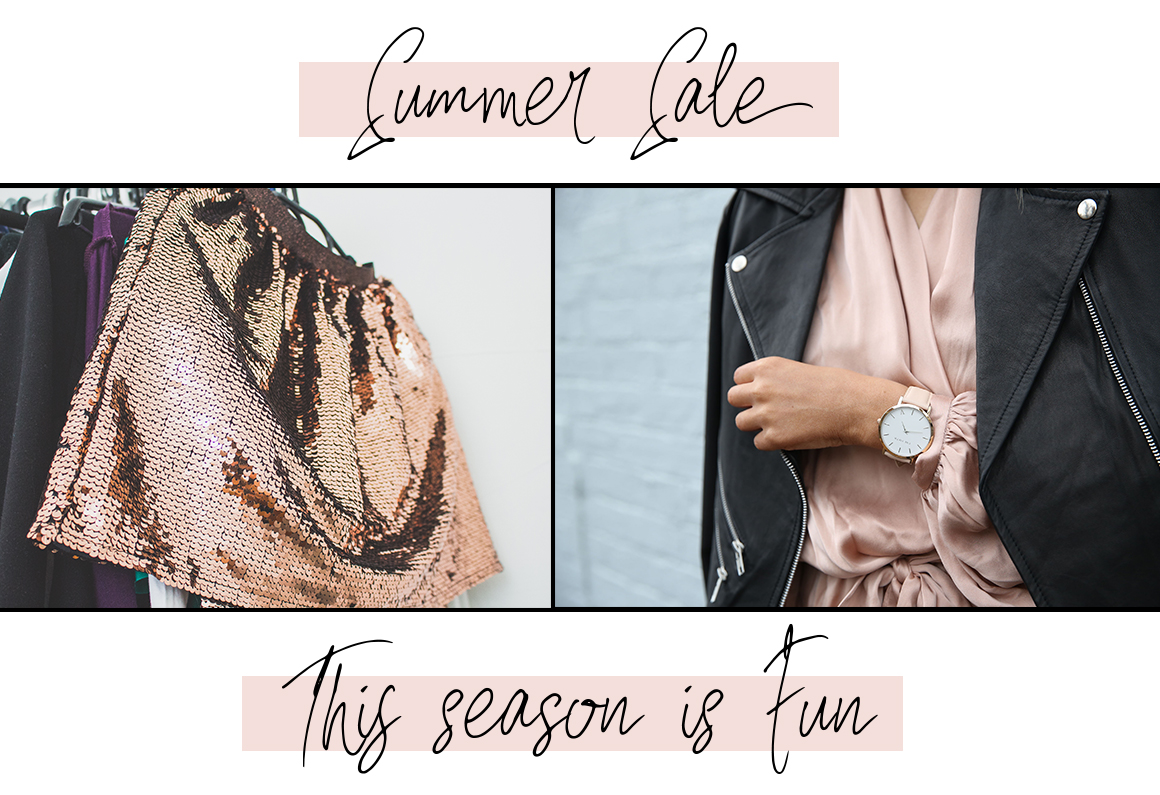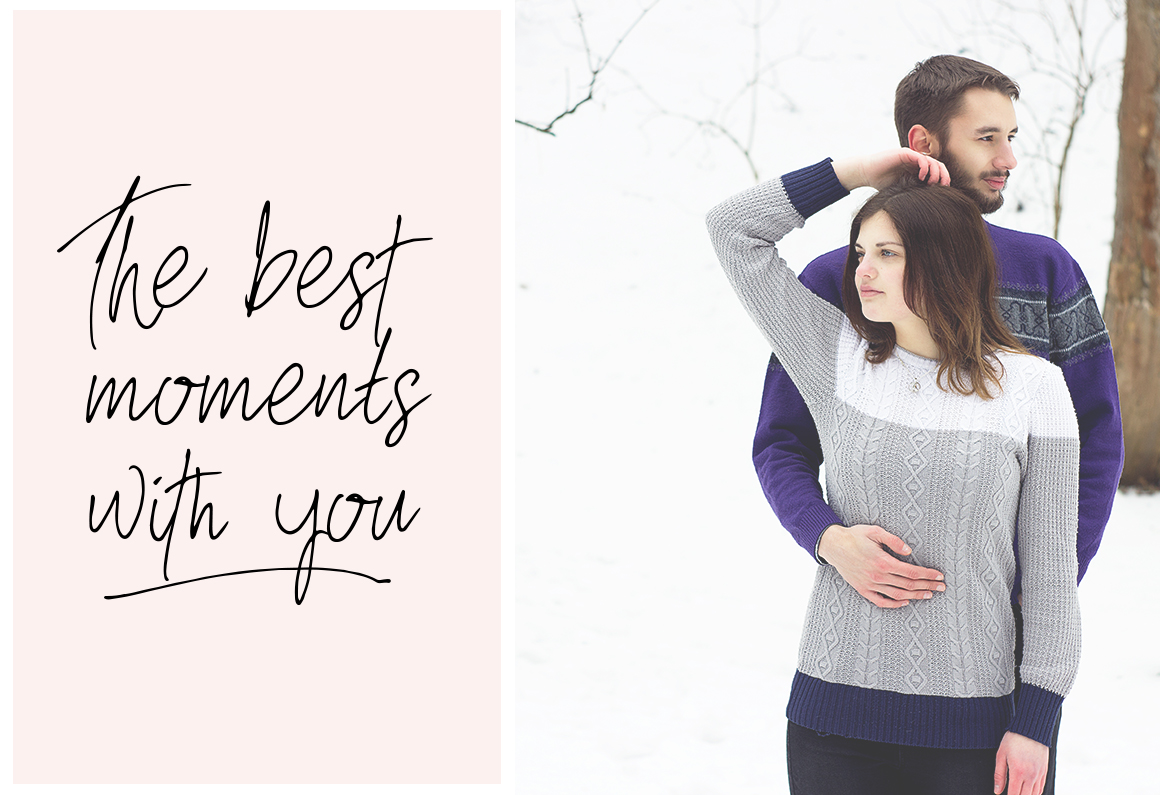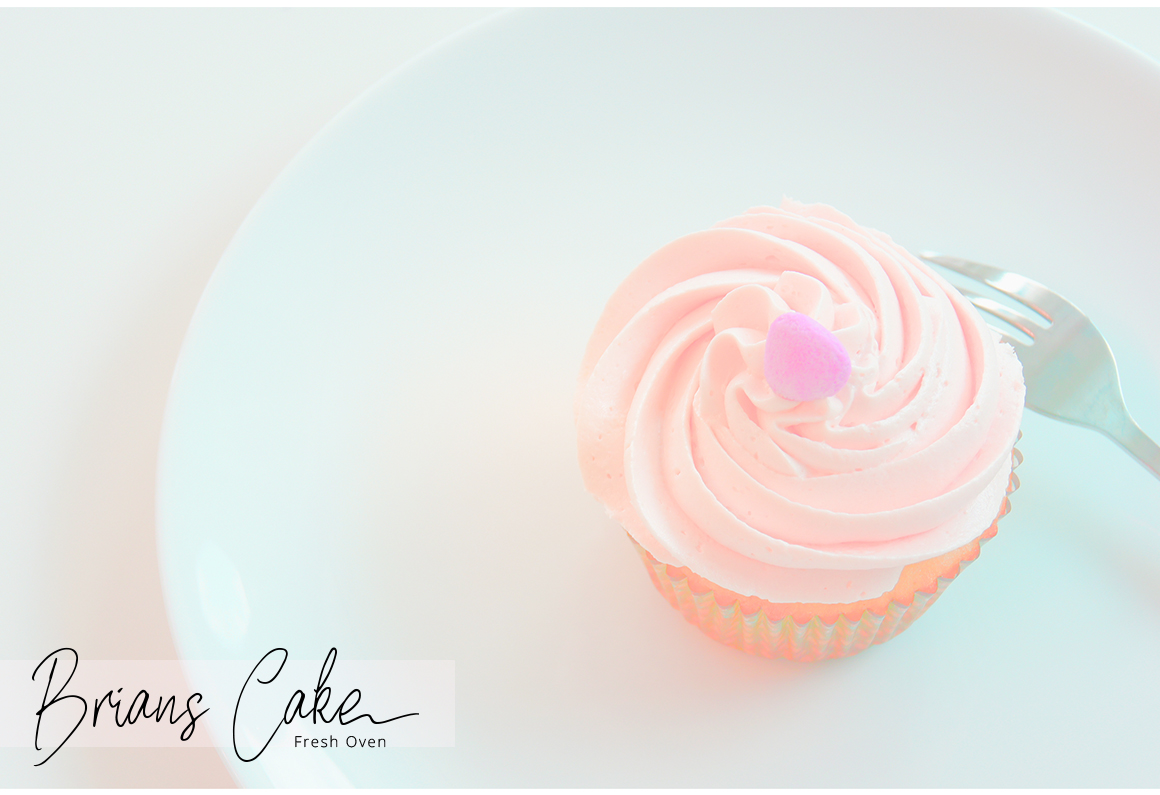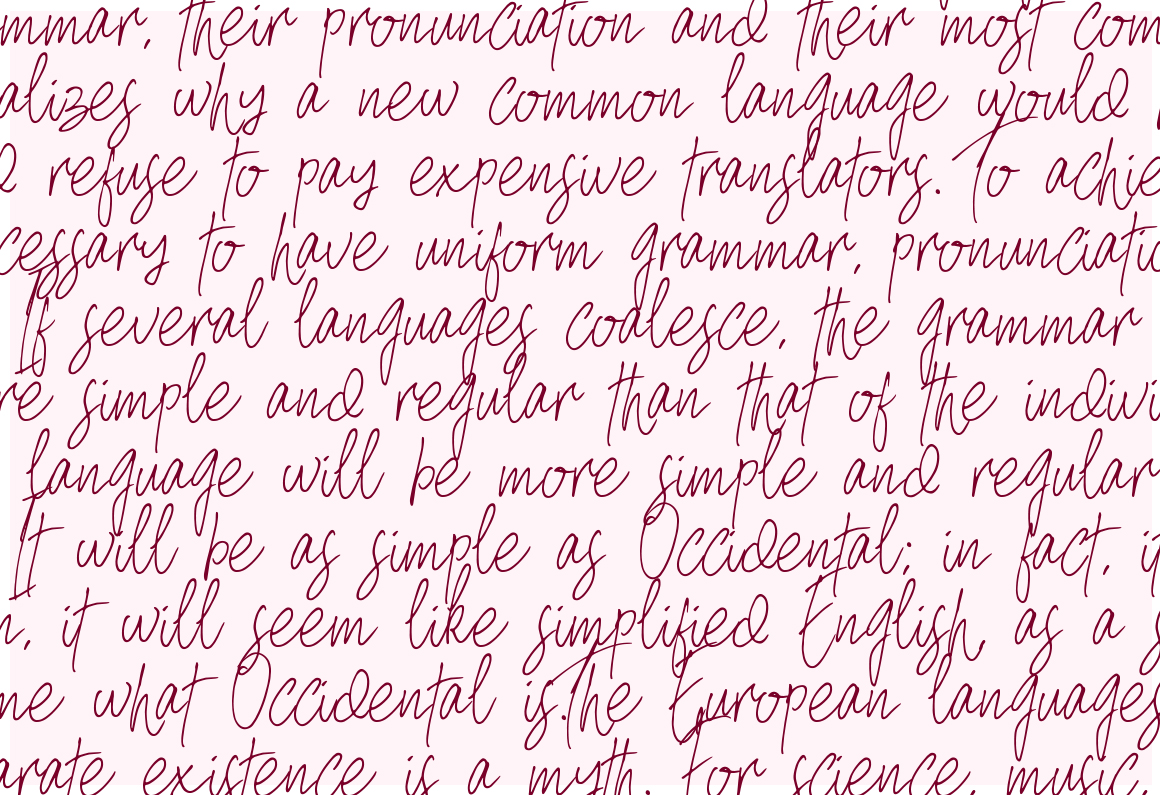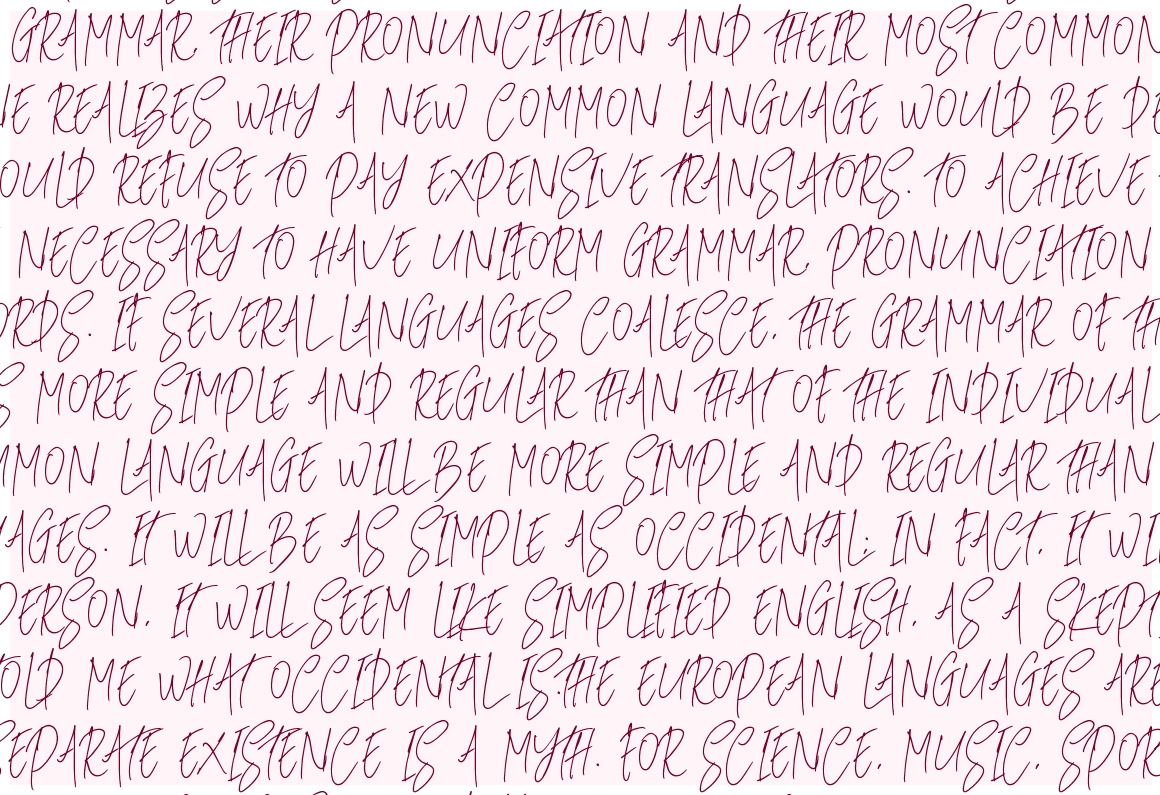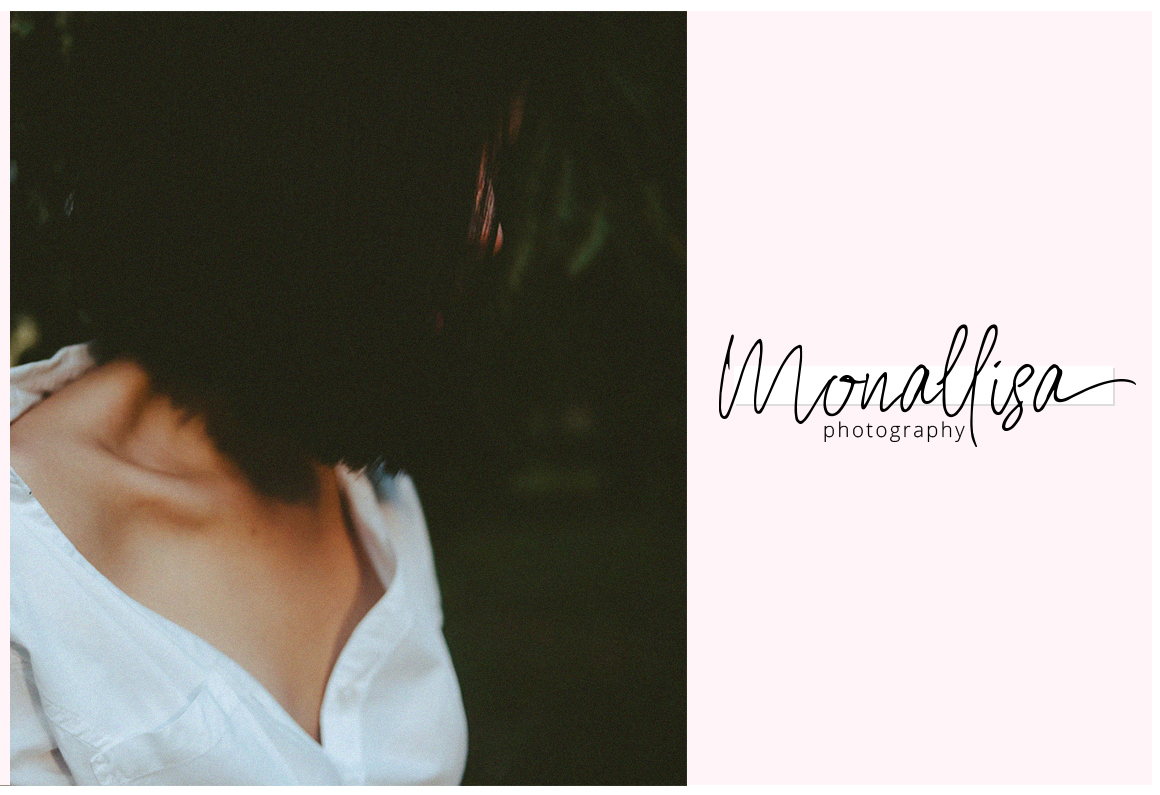
Introduction to Hostens Signature Font Font
Fonts play a crucial role in design, and the Hostens Signature Font font is a typeface that brings both character and versatility to any project. Whether you’re working on a branding project, a website, or a print design, the Hostens Signature Font font offers a unique style that can elevate your work.
Hostens is a gorgeous and editorial script font in a casual signature style.
This font comes with 545 glyphs, meant to give your designs a unique and fresh look .
Key Features of Hostens Signature Font Font
Why Choose Hostens Signature Font Font?
The Hostens Signature Font font is more than just a typeface – it’s a design tool that helps you communicate your message with style and clarity. Its unique character set and versatile design make it suitable for a wide range of applications, from elegant invitations to bold headlines.
With its carefully crafted letterforms and balanced proportions, the Hostens Signature Font font ensures readability and visual appeal across all mediums.
What makes Hostens Signature Font font special?
The Hostens Signature Font font stands out with its unique design, exceptional readability, and versatility across various design applications.